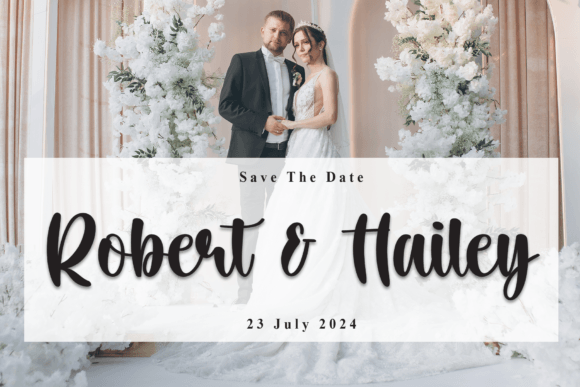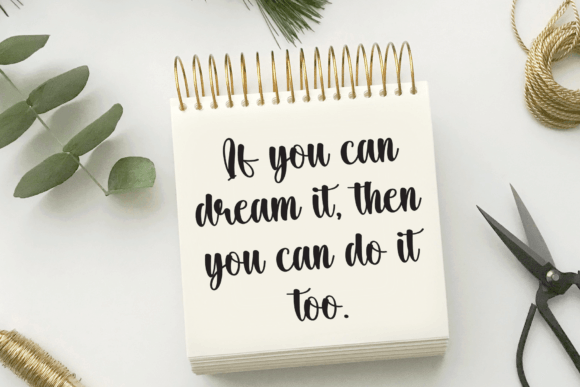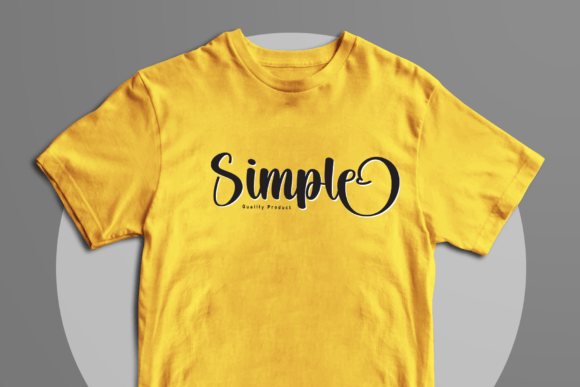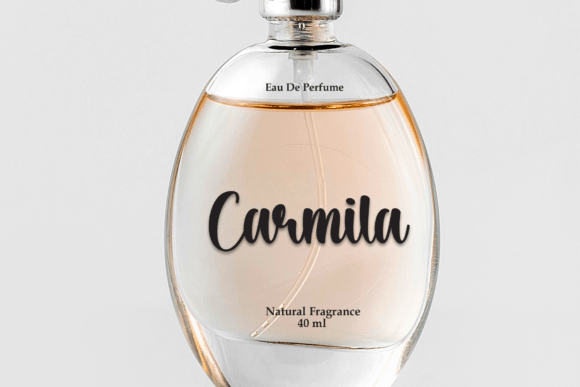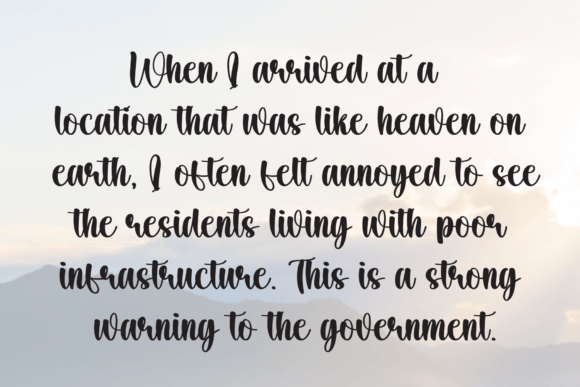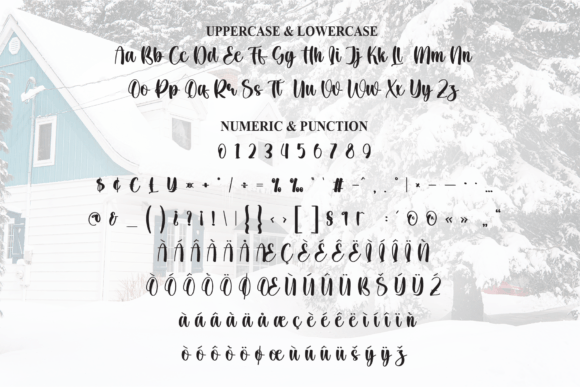
Warm Up Your Winter Projects with Home Winter Font
As the snowflakes start falling outside, I find myself snuggled up by the fireplace, sipping hot cocoa and brainstorming ideas for my next winter-themed project. There’s something magical about this season that inspires creativity and warmth. And that’s exactly what I’m looking for in a font – a design that captures the cozy essence of winter and makes my projects feel personal and inviting.
That’s where Home Winter Font comes in – a bold, handwritten font that embodies the spirit of winter. Its chunky letters and playful strokes are perfect for adding warmth and personality to your winter-themed designs. Whether you’re creating a festive holiday card, a cozy winter scene, or a snowy landscape, Home Winter Font is the perfect companion to help you bring your vision to life.
As a designer, you know how important it is to have the right tools at your disposal. Home Winter Font is a valuable addition to your design arsenal, offering a unique and versatile style that’s sure to elevate your winter projects and make them stand out from the crowd.
- Unique Characteristics: This font features a unique blend of modern and traditional elements, with intricate details and ornaments that evoke a sense of warmth and coziness, perfect for winter-themed designs.
Home Winter Font Review
Overall, I think Home Winter Font is a great addition to any winter-themed design project. Here are some of the things that stand out to me:
- ✨ The font’s warm and cozy feel is perfect for the winter season.
- ✨ The font’s script-like qualities add a touch of elegance and sophistication.
- ✨ The font’s versatility allows it to be used in a variety of contexts, from invitations to signage.
- ⚠️ The font may not be suitable for use in very formal or professional settings, due to its playful and whimsical nature.
Overall, I would give Home Winter Font 4 out of 5 stars. It’s a great choice for anyone looking to add a touch of winter wonder to their design project. With a little creativity and experimentation, I think this font has the potential to be a real showstopper.
Tips for Getting the Most Out of Home Winter Font
Use Home Winter Font to create a cozy and inviting atmosphere in your designs. Pair it with warm colors and rustic textures to create a winter wonderland effect.
Experiment with different font sizes and styles to create a sense of depth and hierarchy in your design.
Use Home Winter Font for:
- Winter-themed invitations and party decorations.
- Cozy home decor and furniture designs.
- Winter sports and outdoor apparel designs.
- Seasonal greeting cards and gift tags.